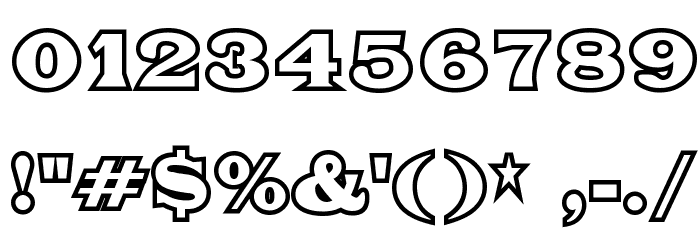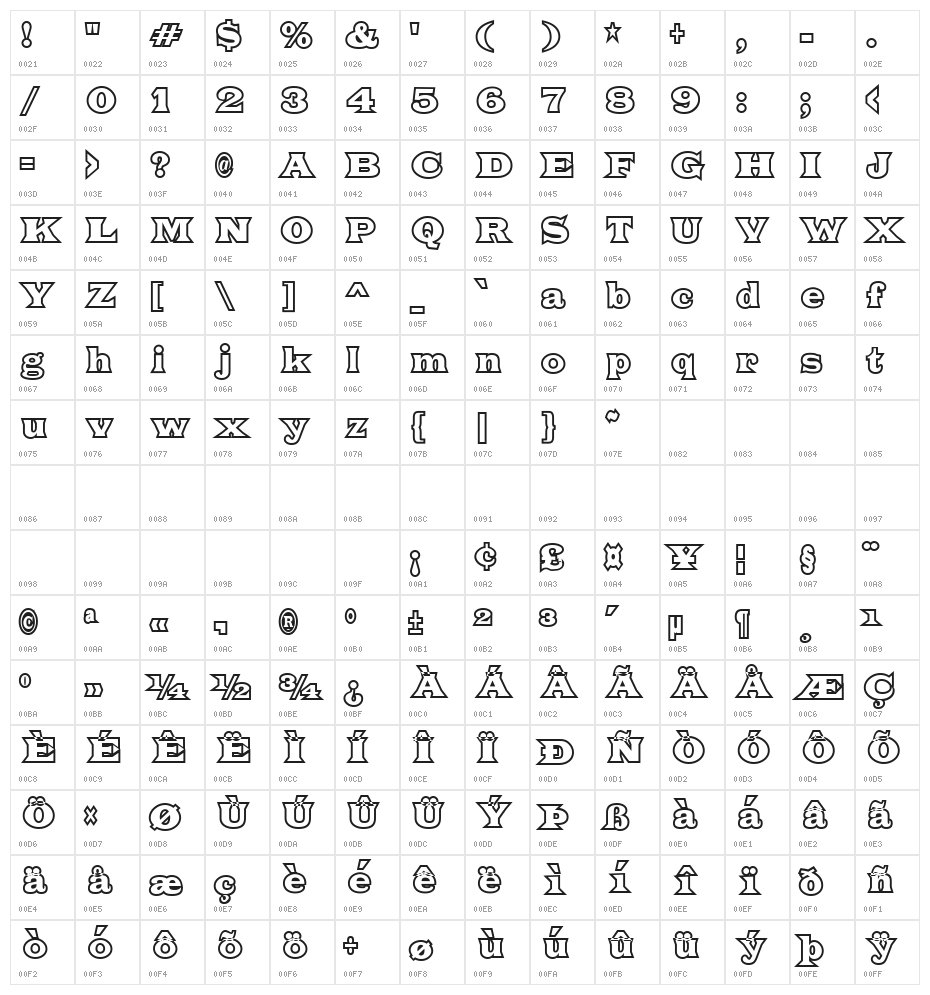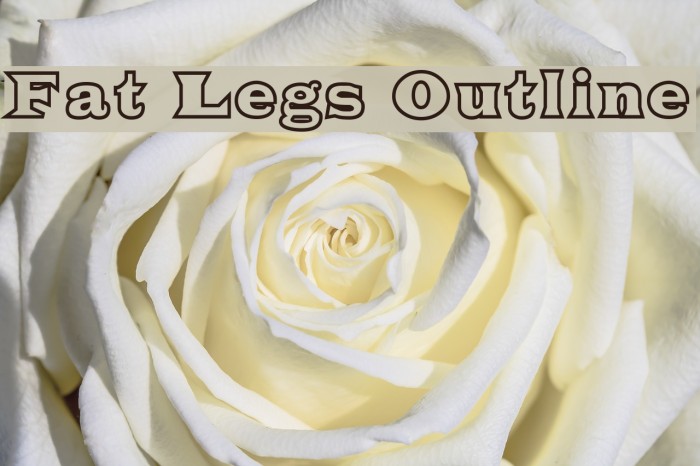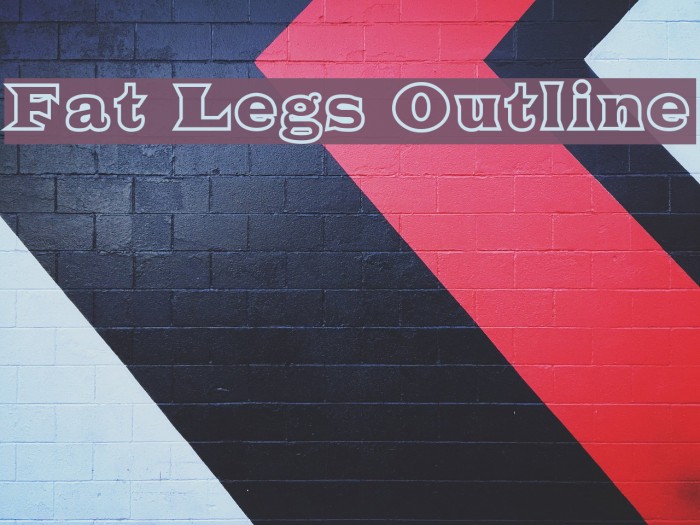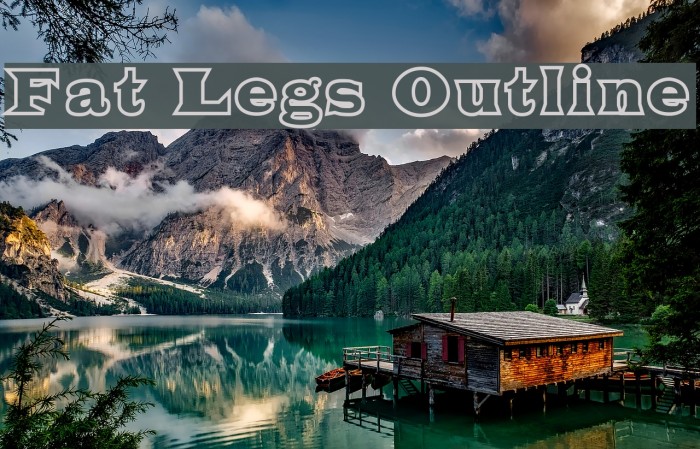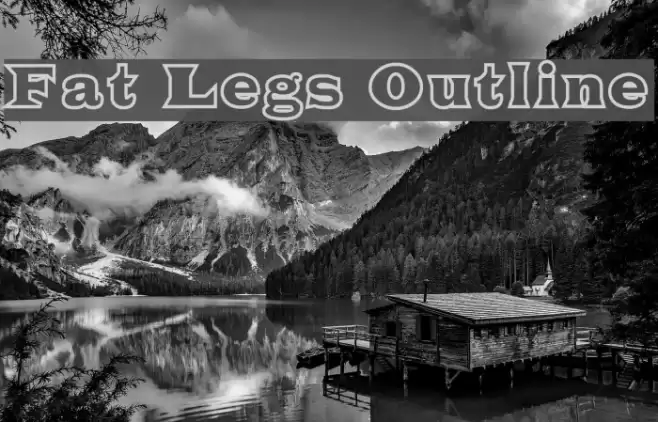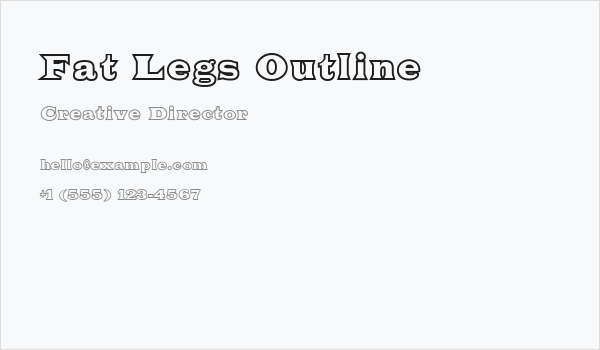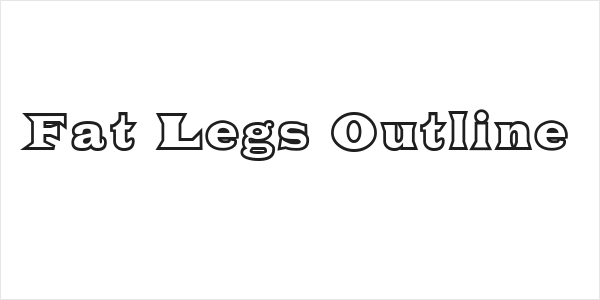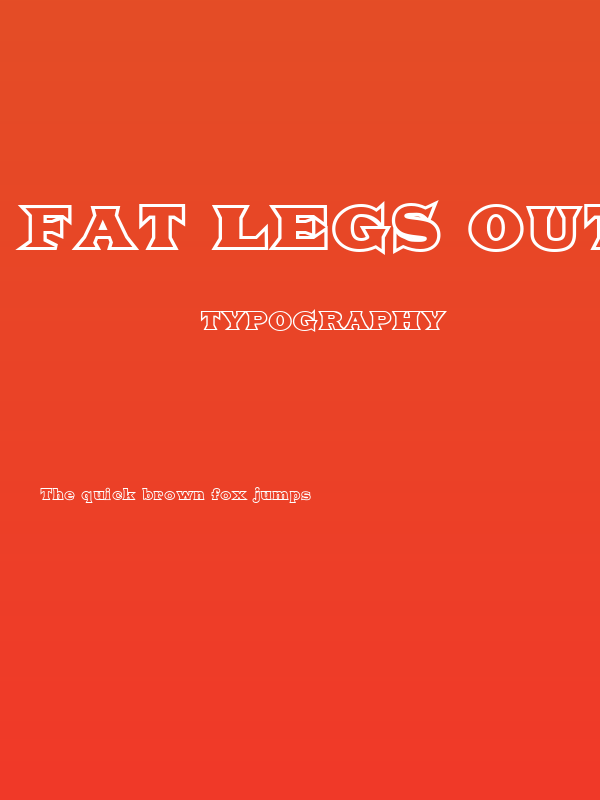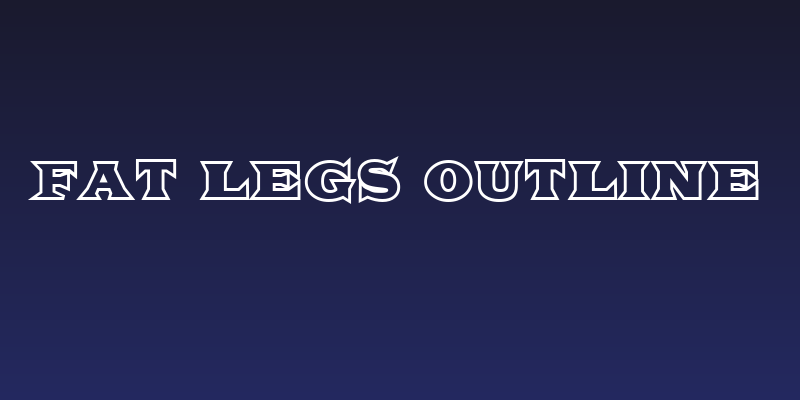
Fat Legs Outline Font
Fat Legs Outline Description
This font features a bold, outlined style with a strong presence. The characters are designed with thick strokes and a distinct outline that gives them a three-dimensional appearance. The uppercase letters have a robust and commanding look, while the lowercase letters maintain a consistent style with slightly rounded edges. The numerals are equally bold, ensuring readability and impact. Special characters are included, maintaining the same outlined aesthetic. This font is ideal for designs that require a standout, decorative touch.